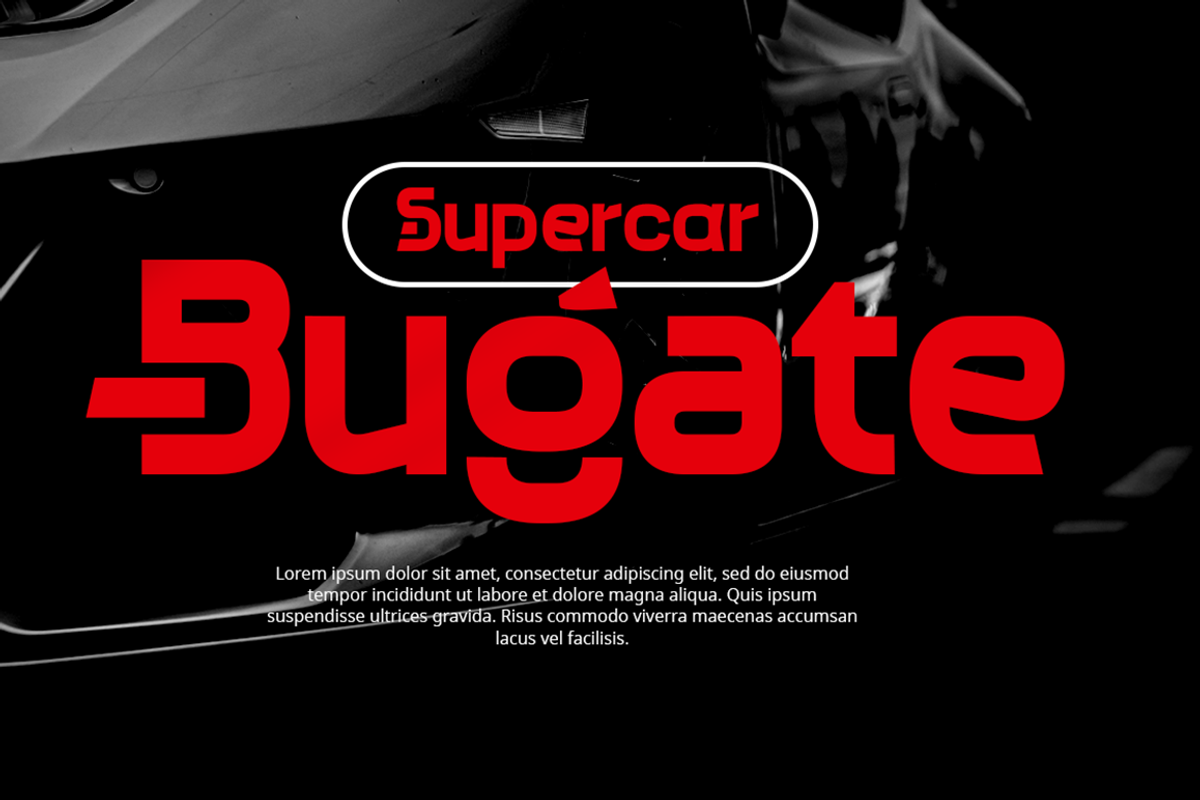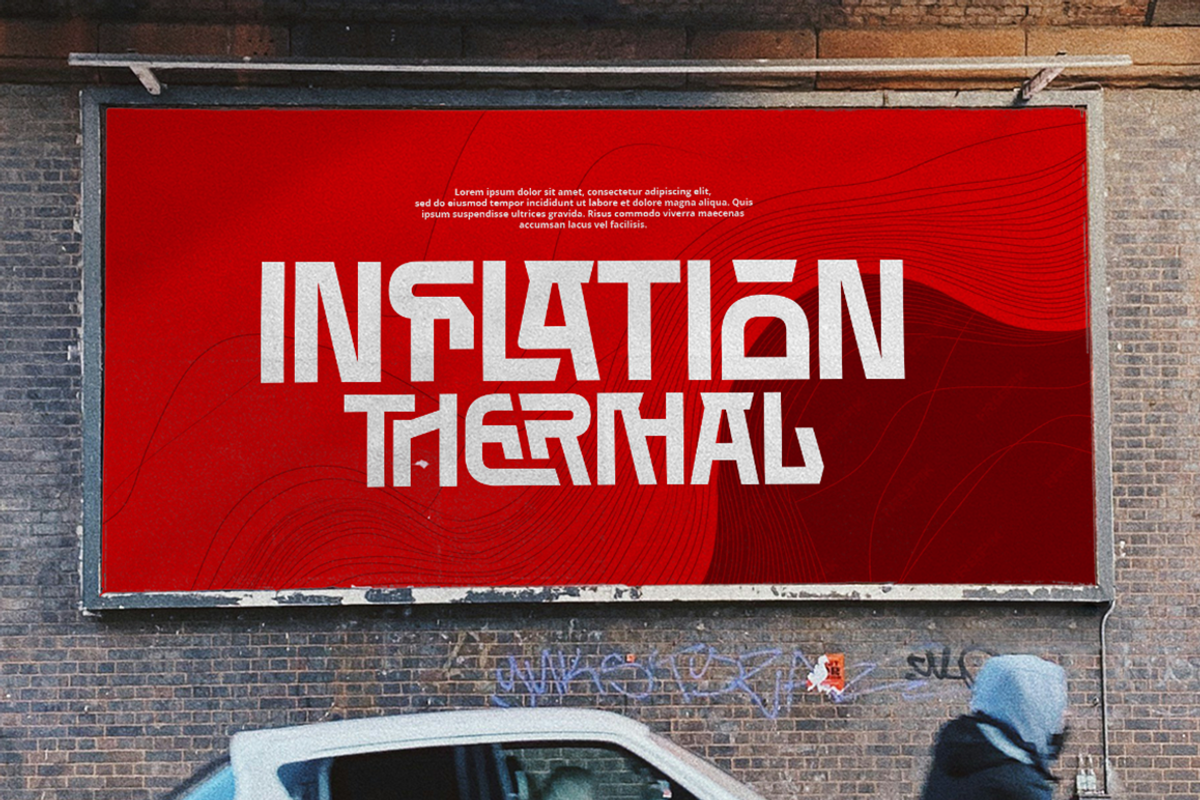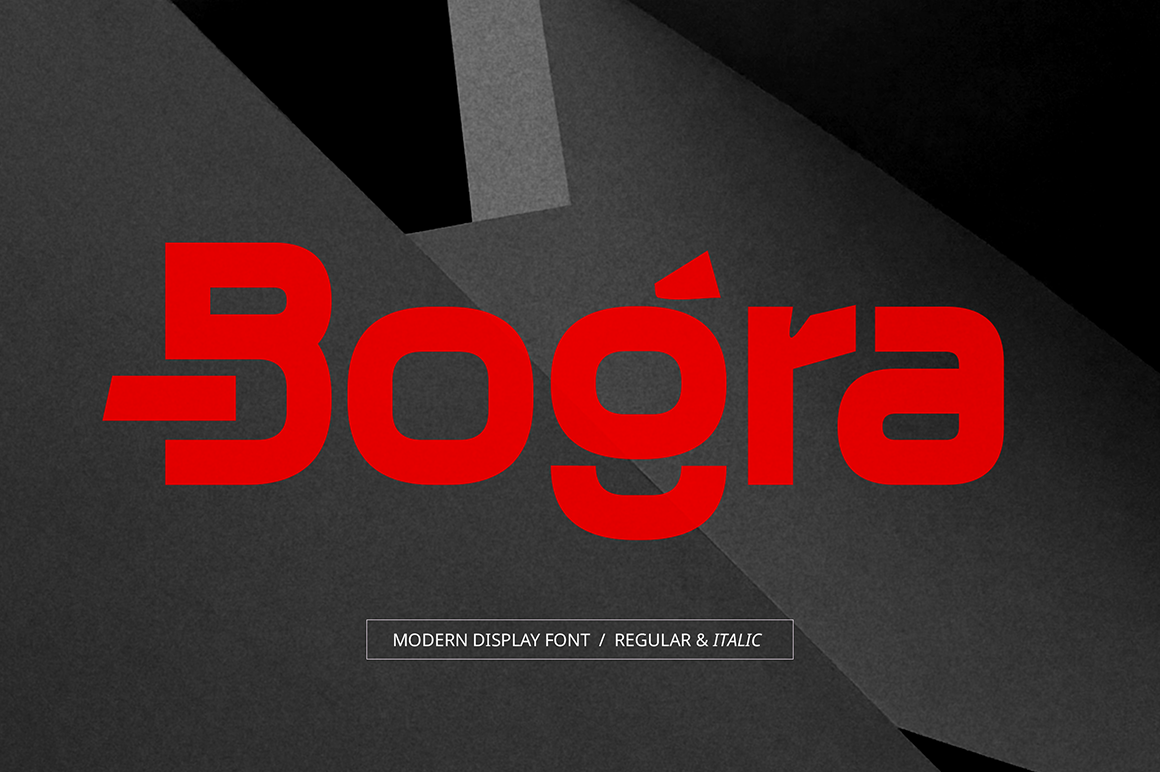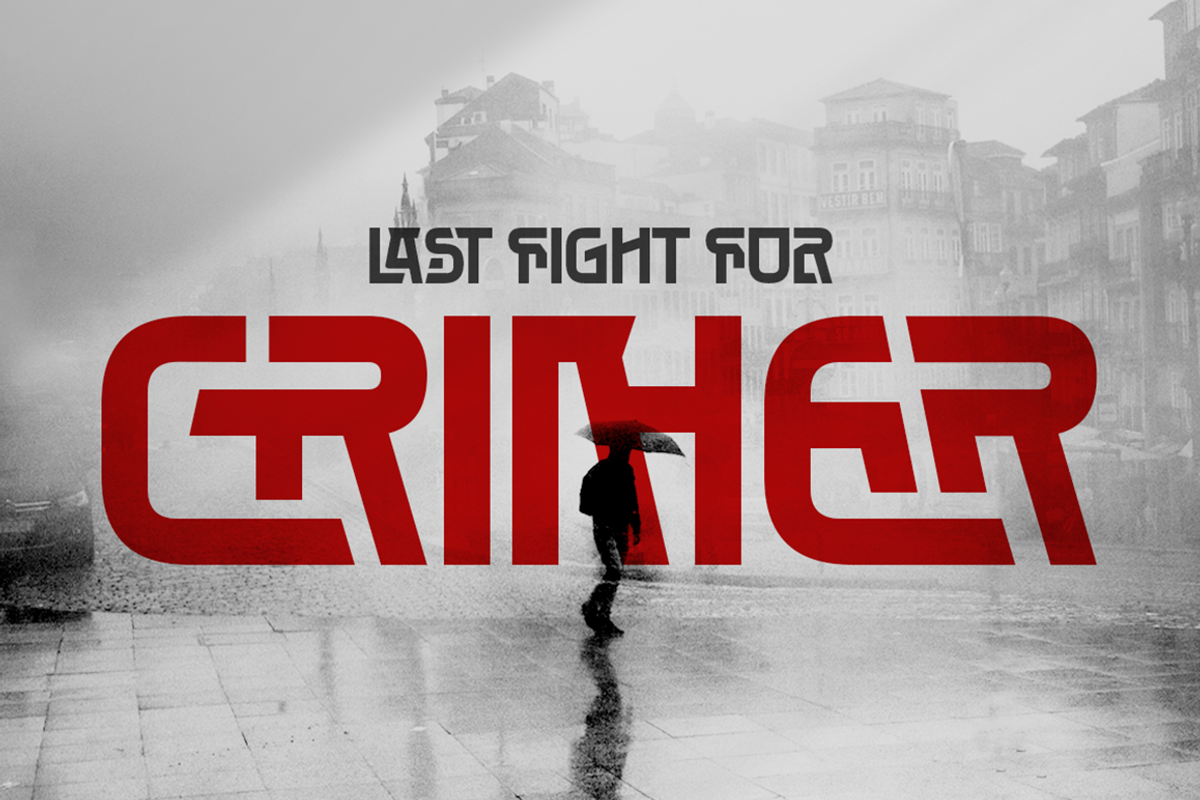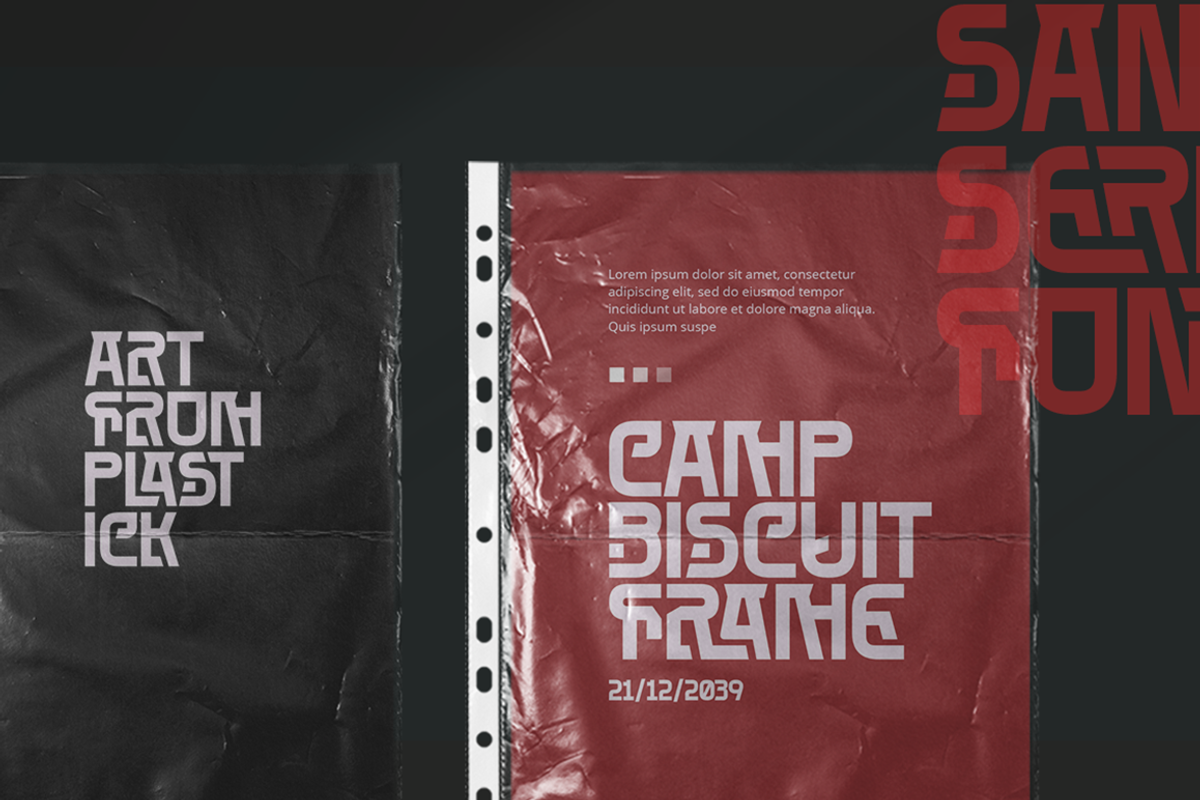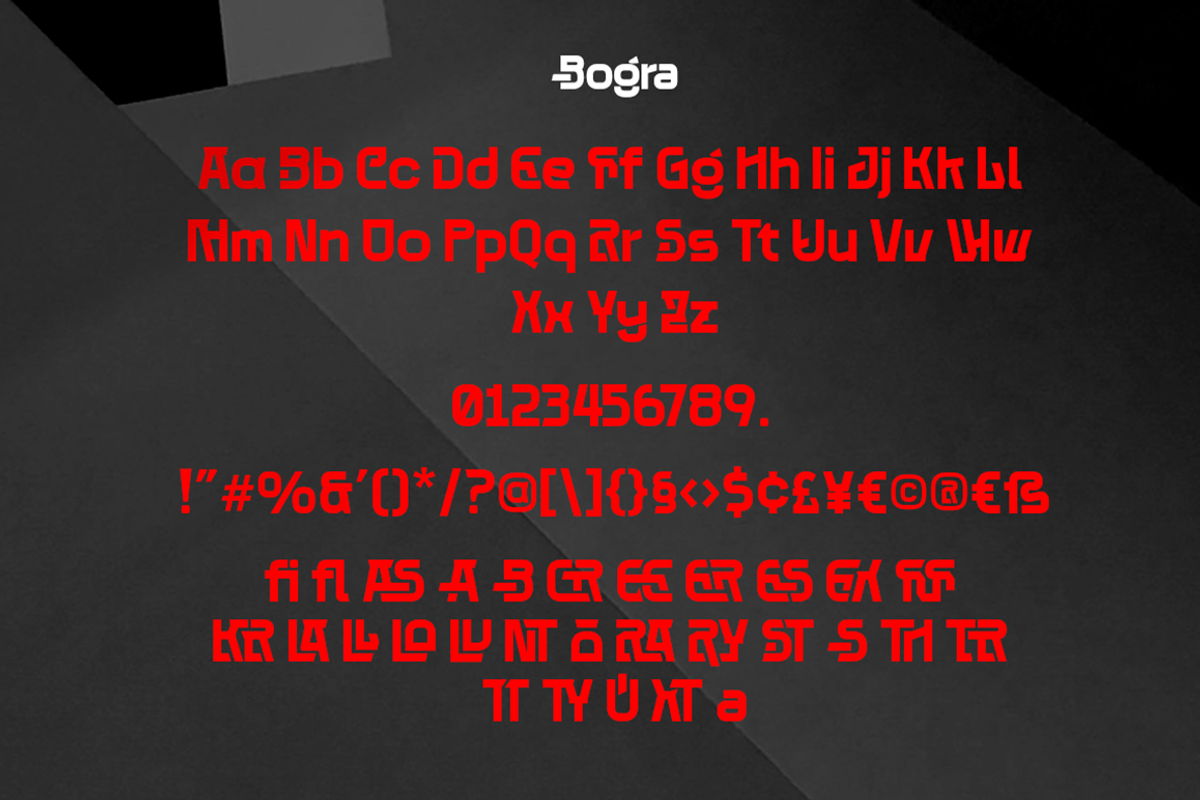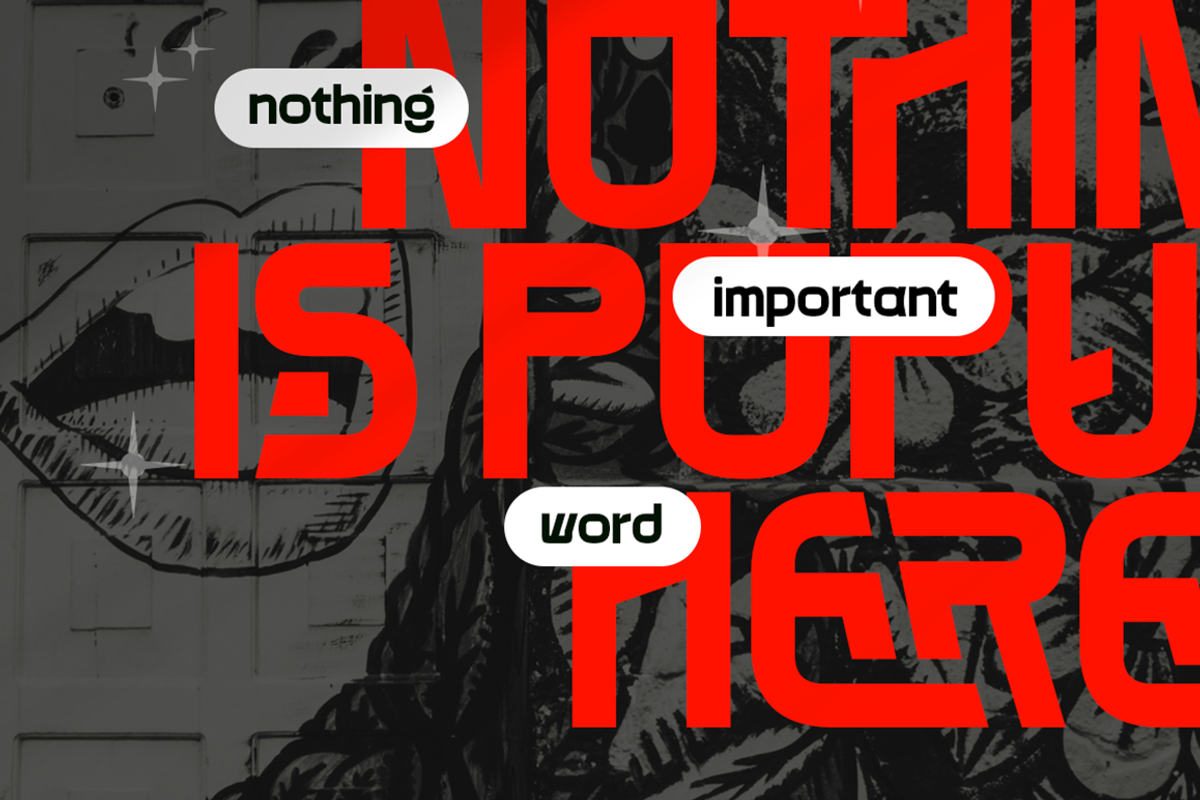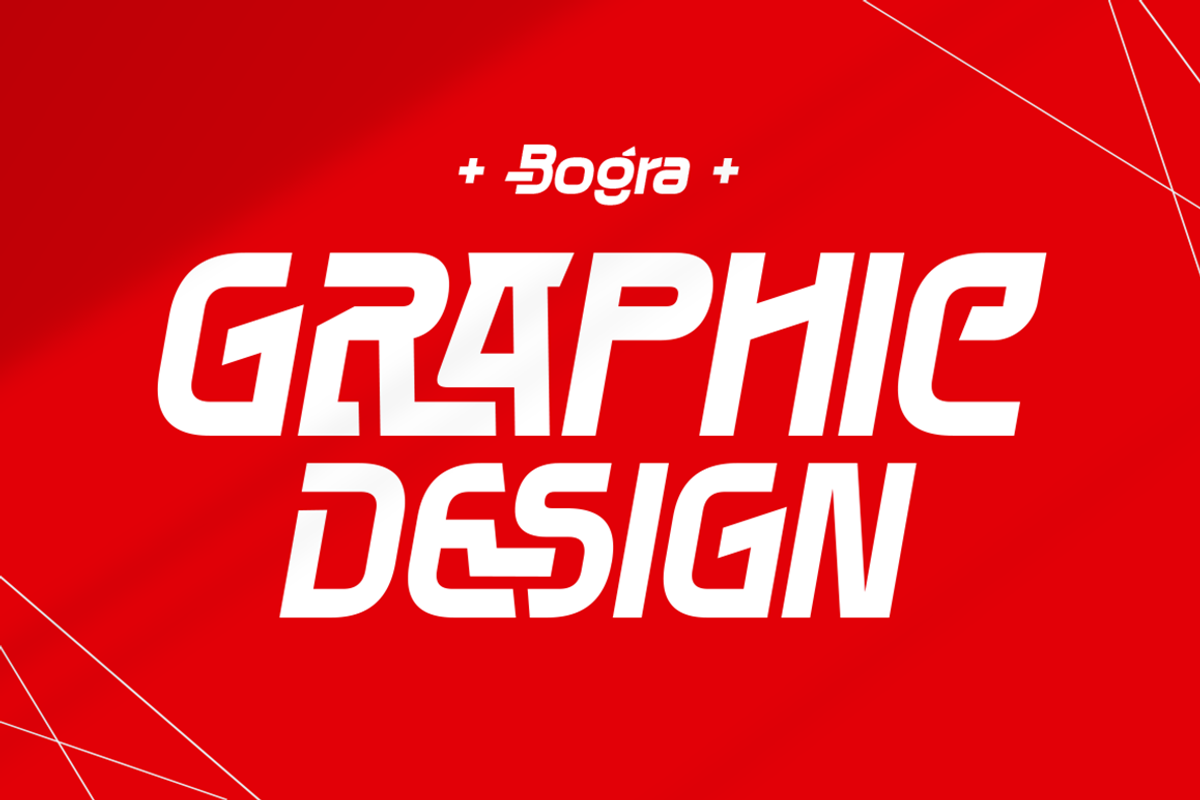
Bogra Font
Bogra is a bold modern display font with strong, clean shapes and thick strokes. Its geometric style gives a powerful and confident look, making it perfect for eye-catching headlines and branding. The font features unique details and distinctive letterforms that add character and personality. Available in Regular and Italic styles, Bogra is ideal for posters, logos, editorial titles, and other designs that need a strong visual impact.